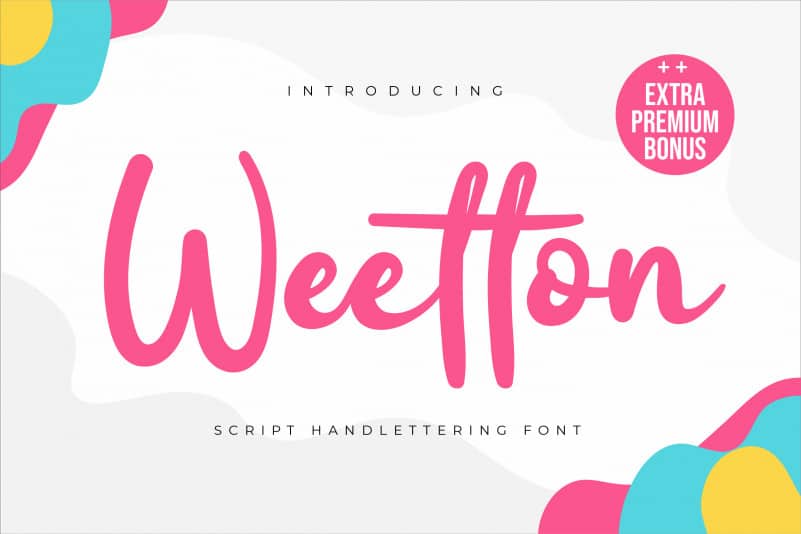
Wetton Script Font
Wetton Script Font is a flowing and thick lettered handwritten font. Fall in love with its incredibly versatile style and use it to create gorgeous wedding invitations, beautiful stationary art, eye-catching social media posts, and much more!